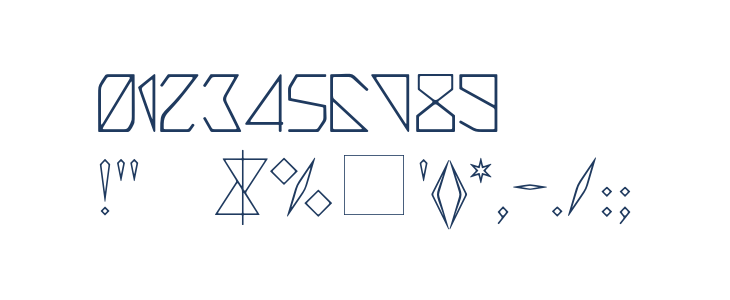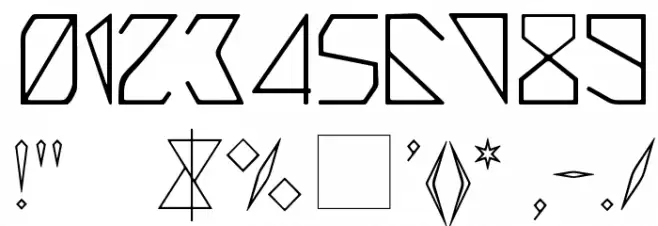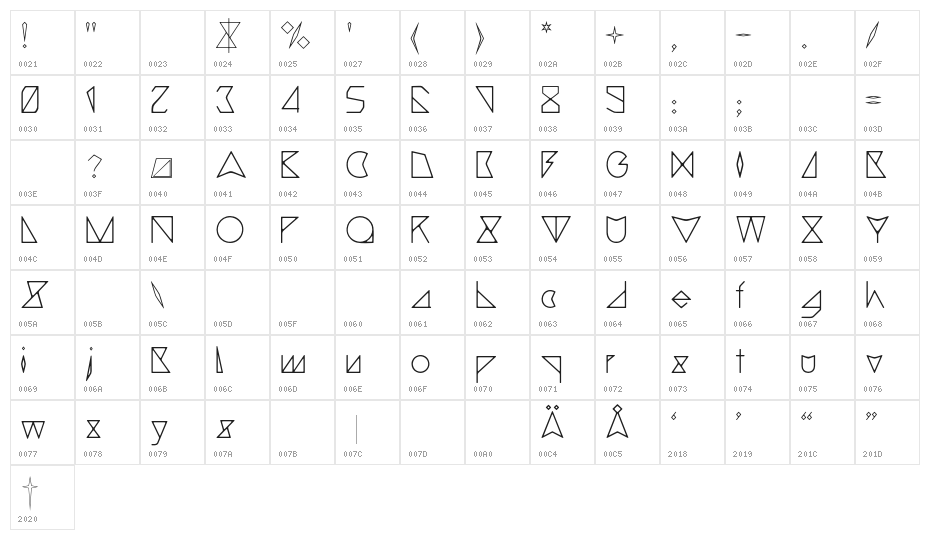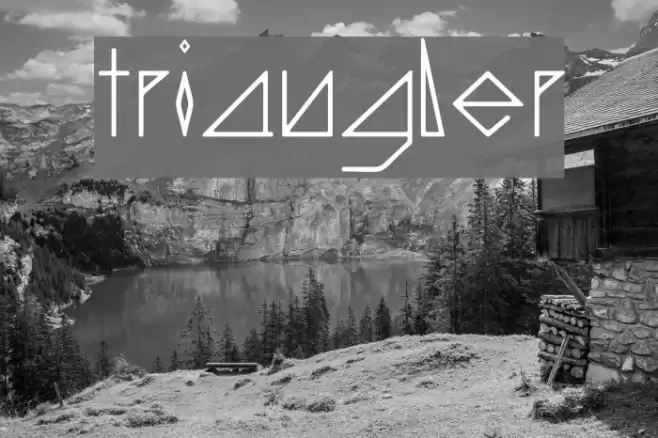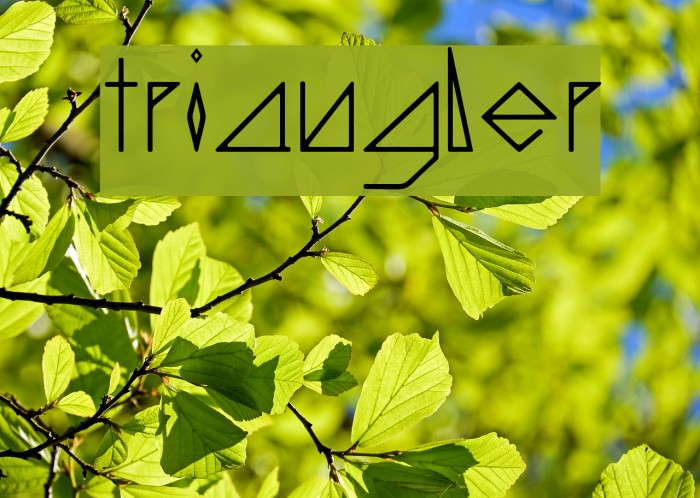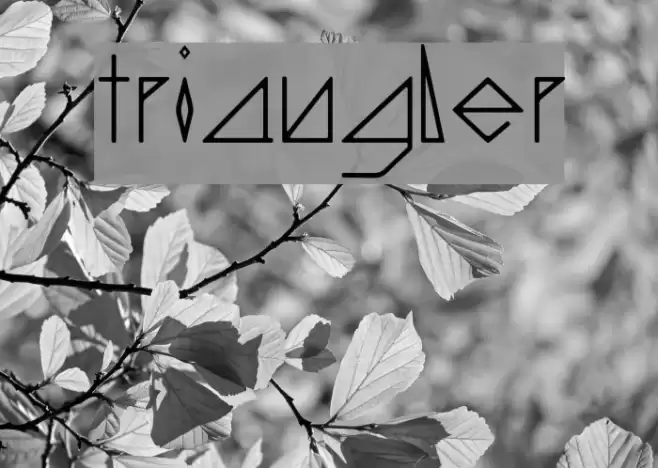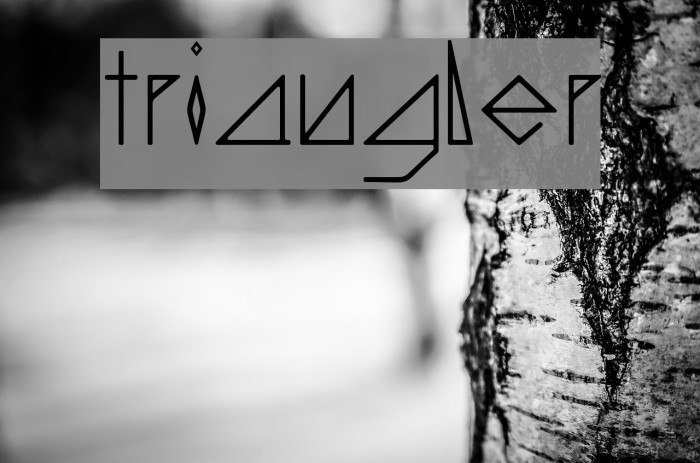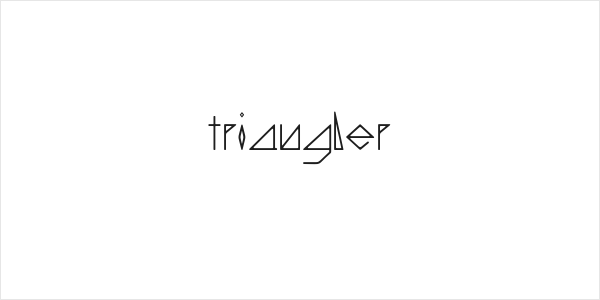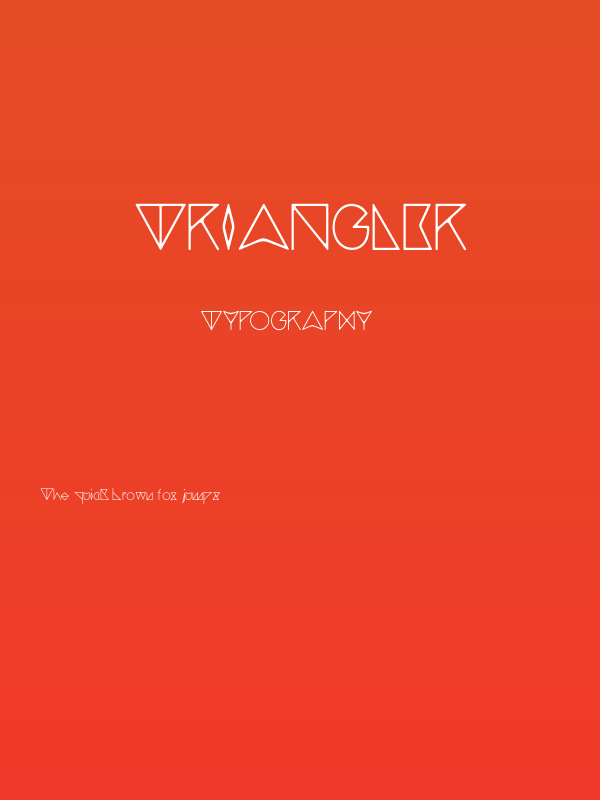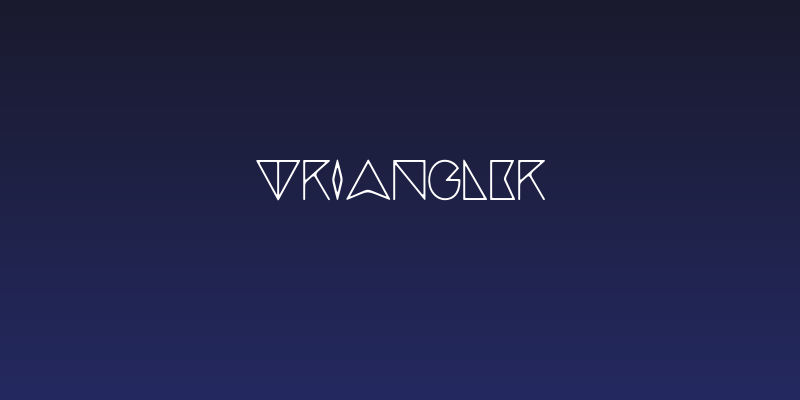
triangler Font
triangler Description
This font features a unique geometric design with a strong emphasis on triangular shapes and angular lines. Each character is crafted with sharp edges and a modern aesthetic, creating a sense of movement and dynamism. The uppercase and lowercase letters maintain a consistent style, with the lowercase letters offering a slightly more compact form. Numbers and special characters are designed to complement the overall angular theme, providing a cohesive look. The font's distinct style makes it ideal for creative projects that require a bold and unconventional appearance.
| Use Case | Logos, Posters, Digital Art |
| Proposed Projects | Ideal for futuristic designs, branding, posters, and digital artwork that require a bold, modern look. |